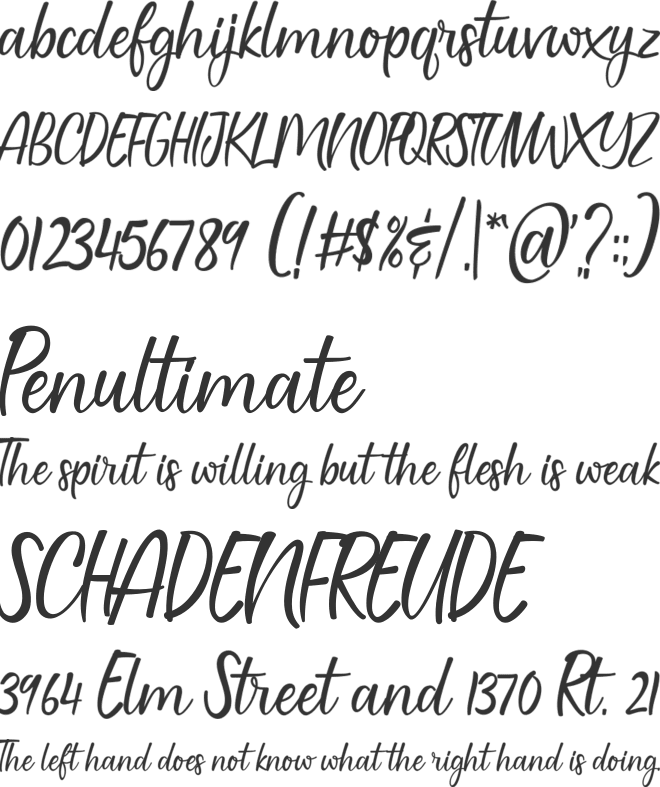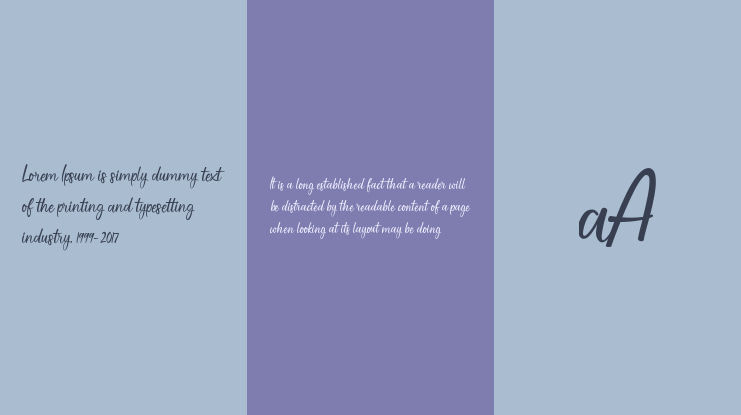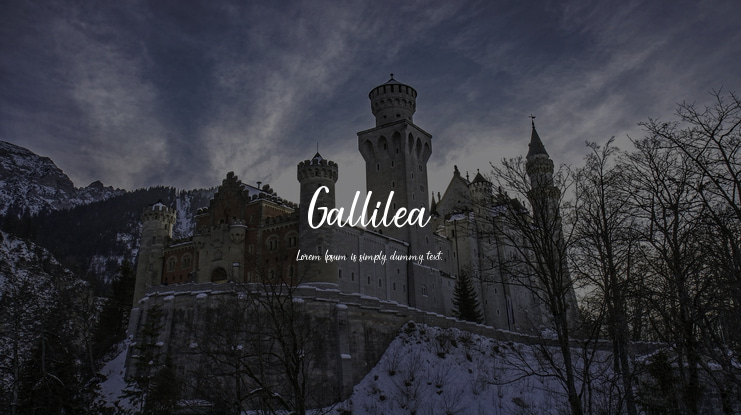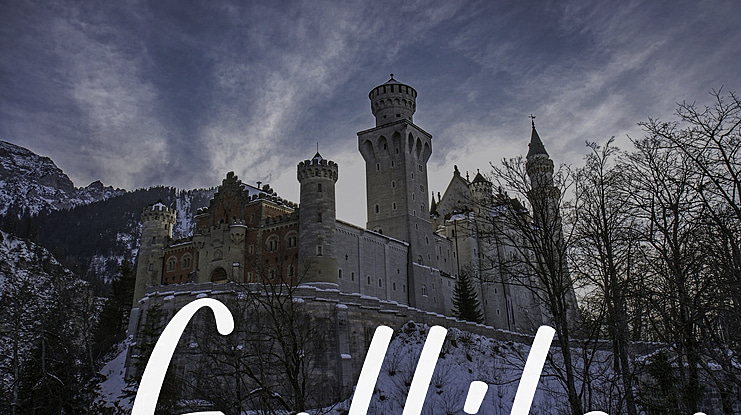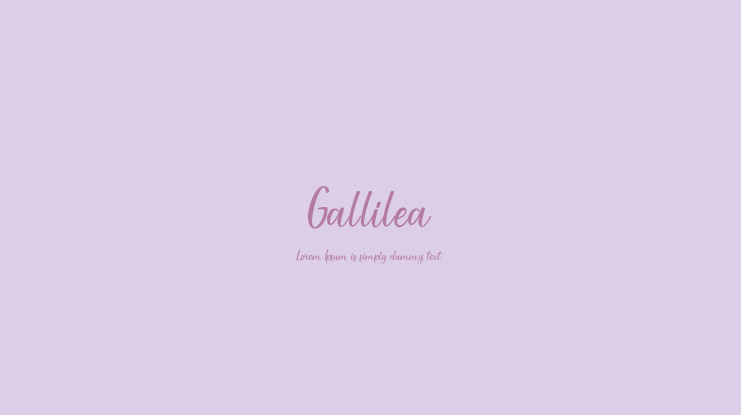
Gallilea Font
Hello! Im pleased to introduce my handwritten font Gallillea Modern calligraphy uppercase letters are ideal for your wedding monograms and logos. Use this font for wedding invitations, branding, packaging, magazines, florist shops, social media, restaurant menus, greeting cards, headers and many more. This font includes 141 stunning ligatures to make your text as close to a natural handwritten script as possible. It's perfect for wedding design projects, instagram, invitations, signatures, watermarks, logos, letterpress address, titles, birthday invitations, handwriting and other.